Fonts can make or break a design, and when it comes to “freaky” text styles, the possibilities are endless! Whether you’re aiming for an eerie, quirky, or playful vibe, using unique and distorted fonts can add a bold statement to your projects.
From social media graphics and branding to posters, gaming content, and Halloween themed designs, freaky fonts can instantly grab attention and evoke strong emotions.
In this article, we’ll explore creative ways to incorporate freaky text into your designs, the best tools to generate them, and tips for making your typography stand out.
What is Freaky in the Font?
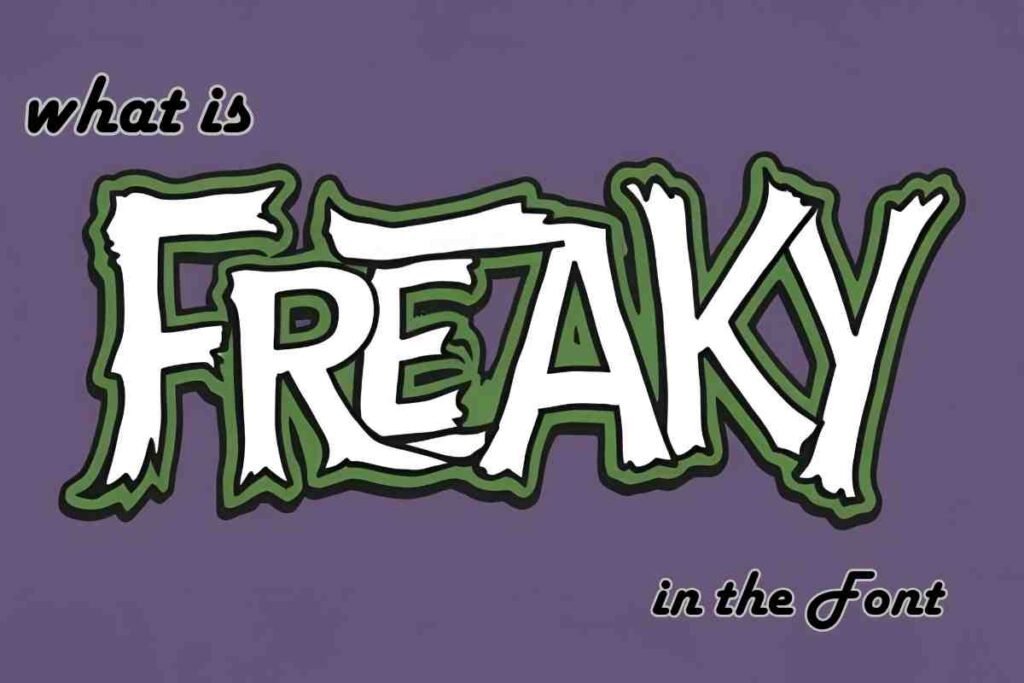
If you’re looking to add a unique and unusual touch to your text, Freaky in the font is your go-to style. These fonts include freaky text fonts, freaky font styles, and freaky font effects, making them ideal for graphic design, social media, and digital art.
Whether you’re creating Halloween designs, memes, or branding elements, using freaky fonts online can elevate your typography game. From distorted fonts to glitch fonts and even Zalgo text, these fonts bring creativity and individuality to every design.
Why Use Freaky Fonts?
Freaky fonts are popular across various creative applications due to their versatility. Many designers and content creators use them to achieve a personalized and unconventional aesthetic. Whether you are working on gaming overlays, web design, or graphic art, freaky fonts can add a dramatic effect to your work.
These fonts are ideal for those who want their text to stand out, be it in social media captions, YouTube thumbnails, or branding logos. The unique and bold nature of these Freaky in the font fonts allows artists and designers to express their creativity in new ways. From gothic fonts to script fonts and even symbol fonts, the range of styles offers endless possibilities.
Creative Ways to Use Freaky in the Font
Explore unique and eye-catching ways to use freaky fonts for bold, playful, and eerie designs in branding, social media, and more!
Social Media Branding
In today’s digital world, standing out on social media is essential. One of the best ways to achieve this is by using freaky font styles to make your captions, profile names, and bios visually appealing.
By leveraging a Freaky in the font generator, users can create engaging text effects that capture attention instantly. Platforms like Instagram, TikTok, and Twitter are highly competitive, and the right typography can set your content apart from others.
Whether you are running a personal blog, business page, or meme account, using freaky lettering can enhance engagement and draw more viewers.
Gaming & Streaming Overlays
Gaming and live-streaming have become incredibly popular, and the use of freaky font design plays a crucial role in branding gaming content. Gamers often customize their overlays, banners, and usernames with stylized fonts that give their channels a unique identity.
Fonts such as glitch fonts, weird fonts, and stylized fonts create an edgy look that aligns with the modern gaming aesthetic. From game logos to chat overlays, the right freaky font effects can elevate a gaming channel’s overall appeal.
Halloween and Horror-Themed Designs
When it comes to horror and Halloween-themed graphics, freaky word fonts are an excellent choice. The eerie and unsettling nature of fonts like Zalgo text, gothic fonts, and distorted fonts make them perfect for creating spooky invitations, banners, and posters.
Whether designing event flyers, YouTube thumbnails for horror content, or eerie-themed book covers, these fonts add a chilling touch. Many horror movie posters rely on Freaky in the font art to establish a foreboding atmosphere, and you can achieve the same effect with the right typography.
Memes & Viral Content
Memes have become a dominant form of online communication, and freaky fonts online can help make them more impactful. Whether you’re using text stylization for comic captions or adding text effects for dramatic punchlines, the right typography can enhance the humor and shareability of your content.
Social media platforms like Facebook, Reddit, and Twitter thrive on memes, and using decorative fonts, stylized fonts, and Unicode fonts can make your content stand out. Some meme creators even use character maps and Unicode encoding to generate unique visual effects within their text.
Web & Graphic Design
Web designers and graphic artists frequently experiment with freaky font effects to make their projects more engaging. Websites, logos, banners, and digital illustrations often benefit from the use of freaky font design, as it adds personality and artistic flair.
These fonts, often available in TTF and OTF formats, allow designers to customize typography with vector graphics, digital typography, and creative text effects. The uniqueness of unusual fonts and text manipulation tools makes them a valuable asset for modern digital projects.
Yes, freaky font design is great for branding, especially for alternative fashion, gaming, and artistic brands.
Do freaky fonts work on all platforms?
Most freaky fonts online use Unicode encoding, making them compatible with Instagram, TikTok, Twitter, and other platforms.
What are some popular freaky font styles?
Popular styles include glitch fonts, Zalgo text, decorative fonts, and unusual fonts.
Can I create my own freaky font?
Yes, with font design software and vector graphics tools, you can create custom freaky font examples.